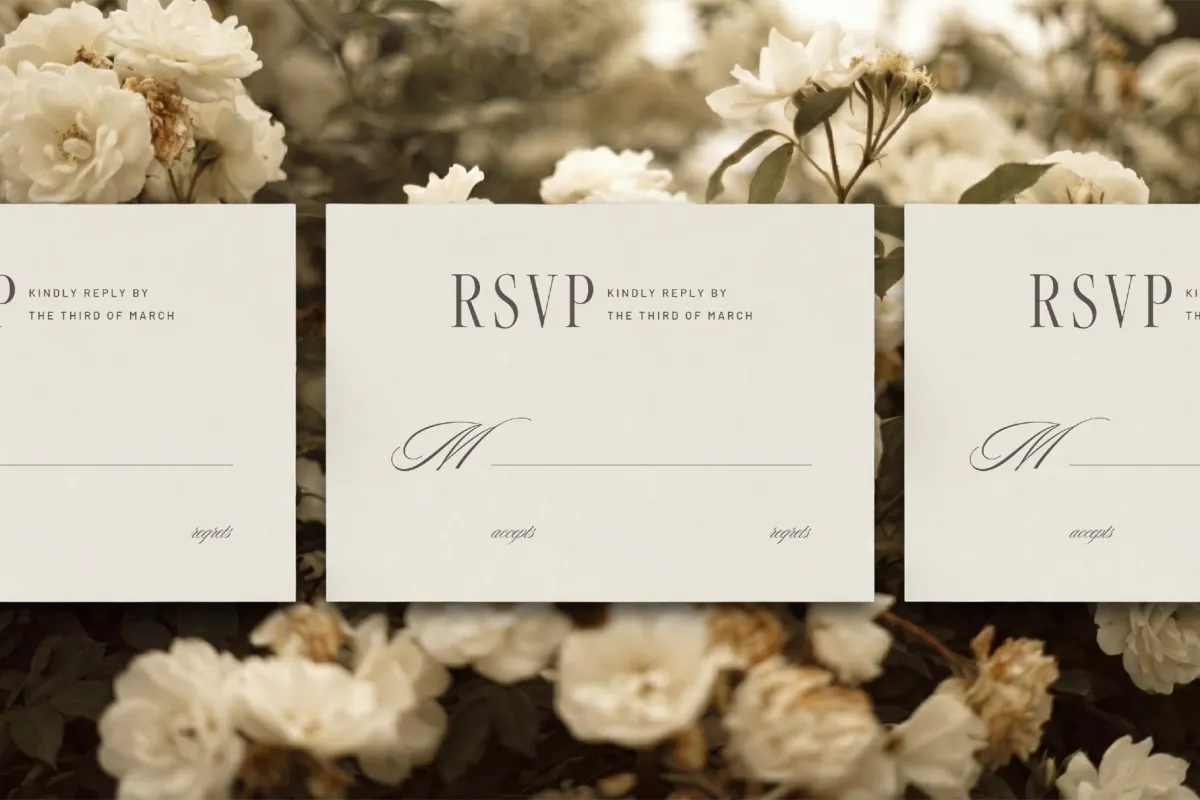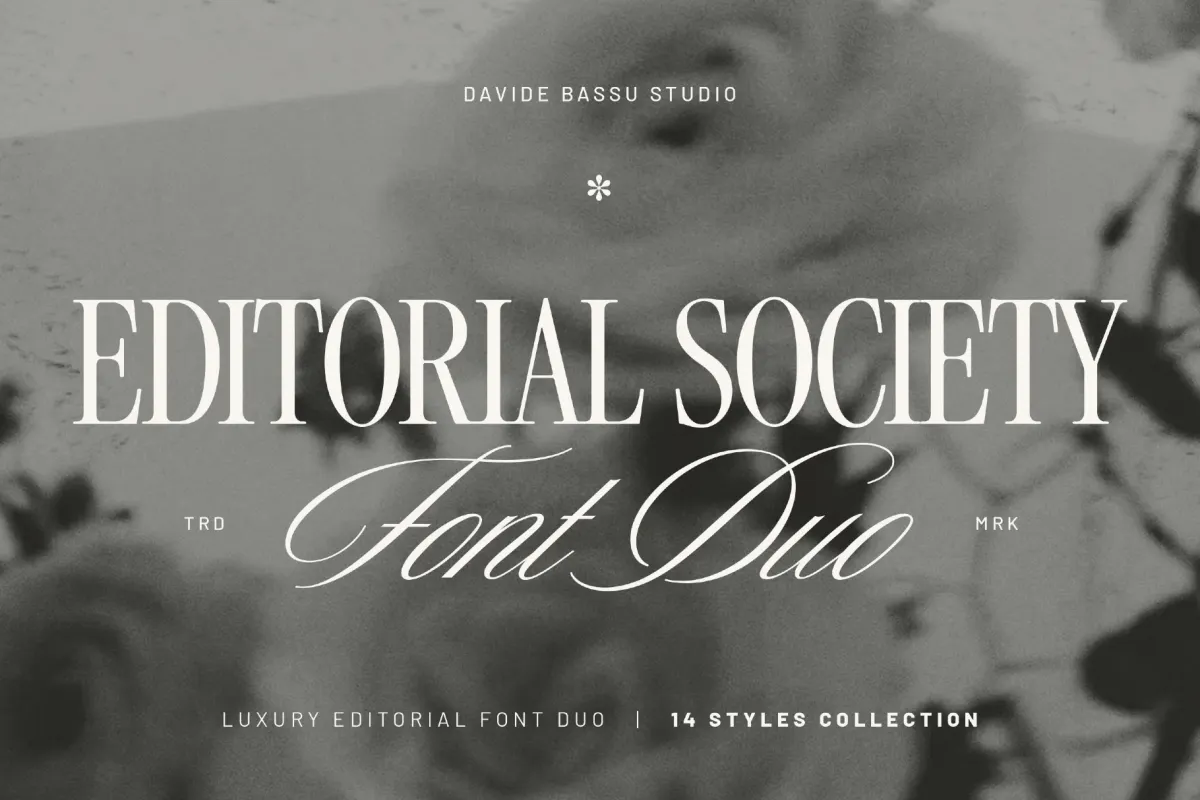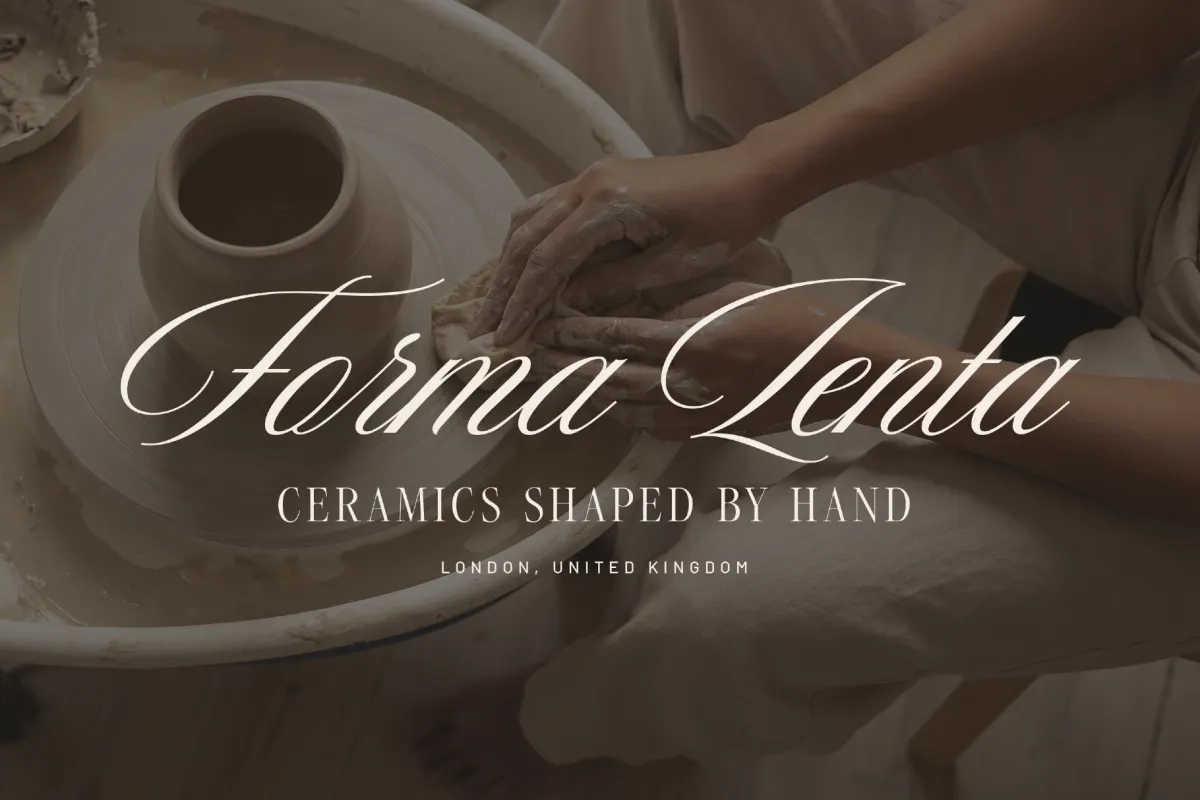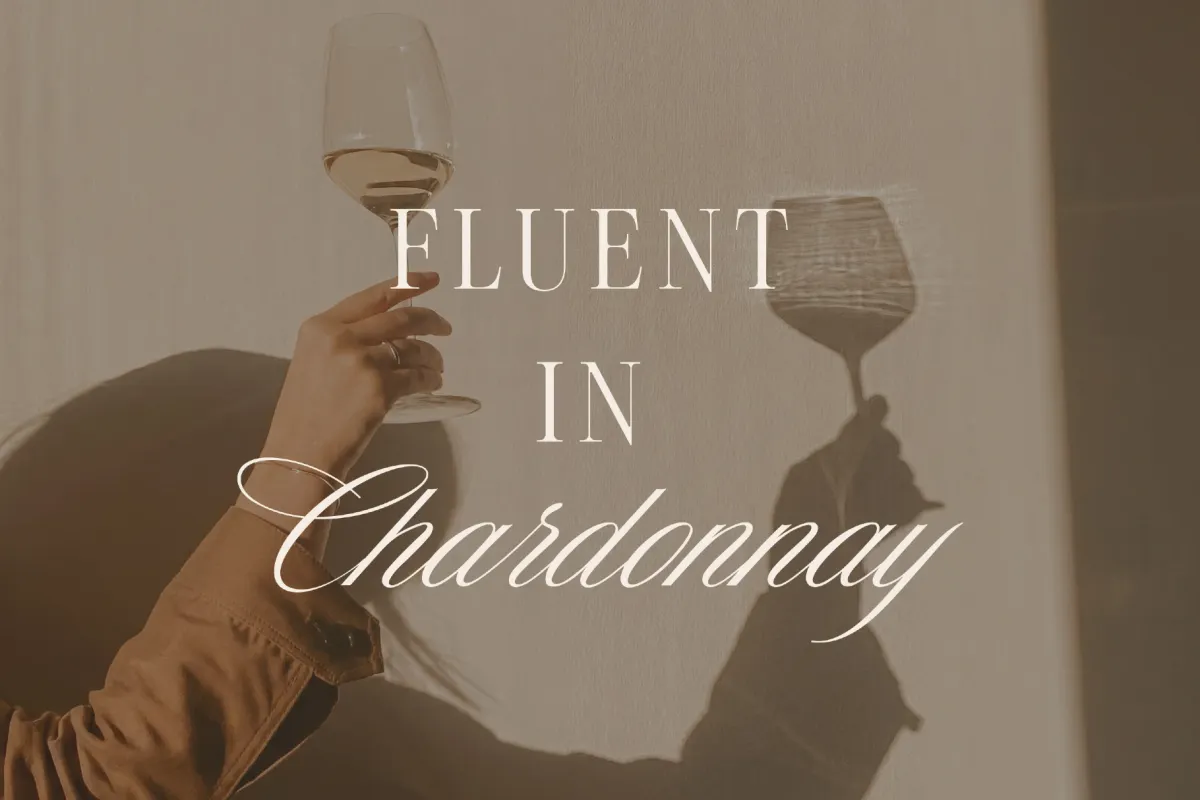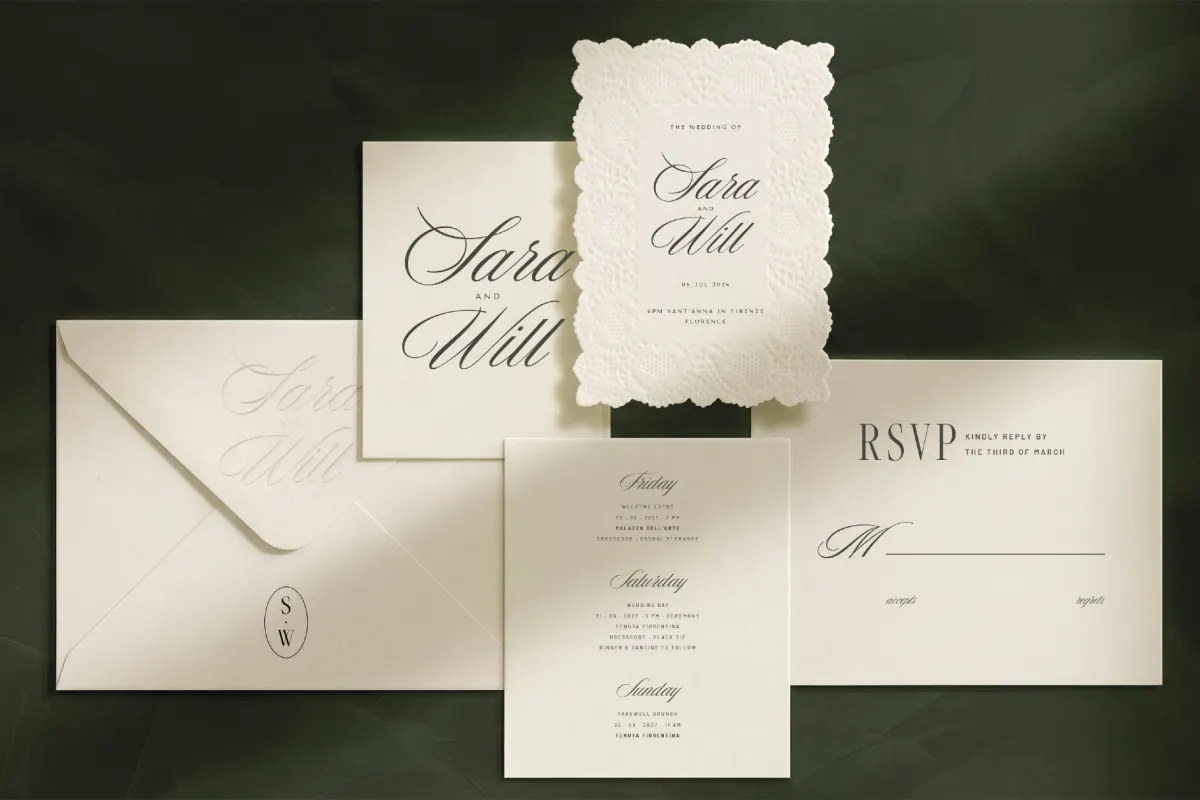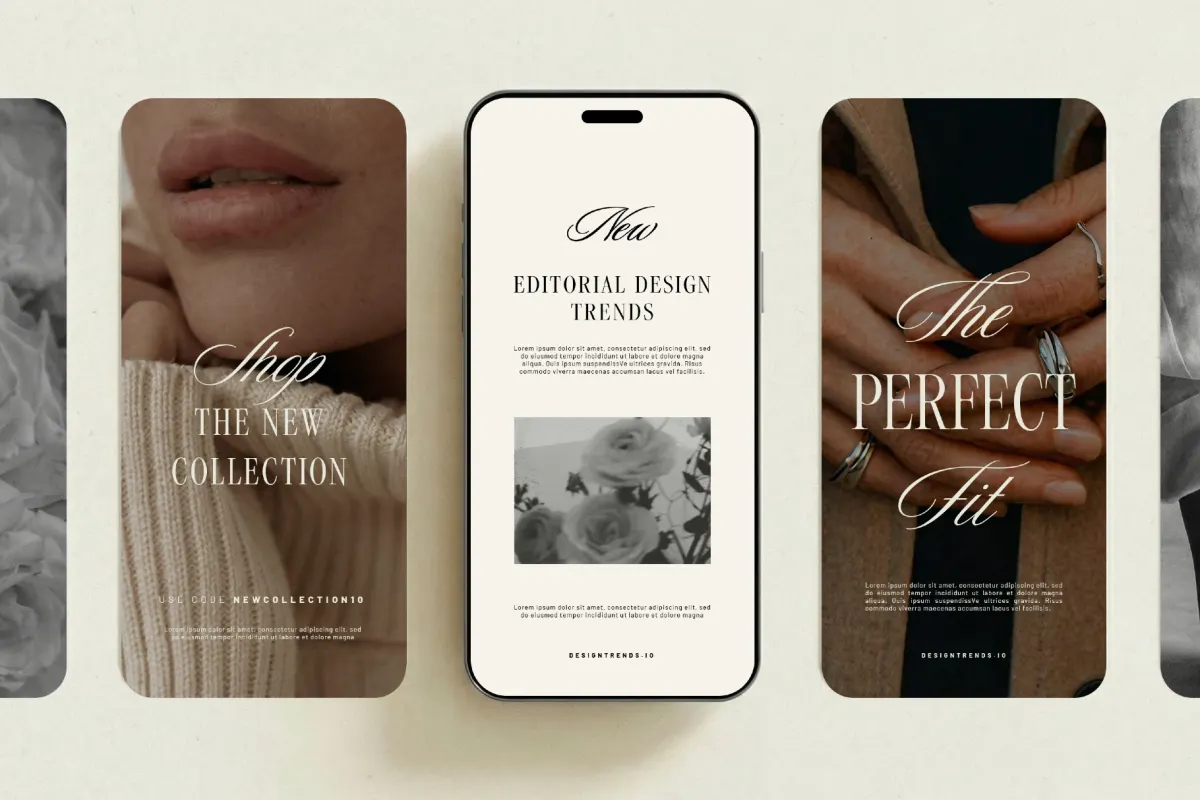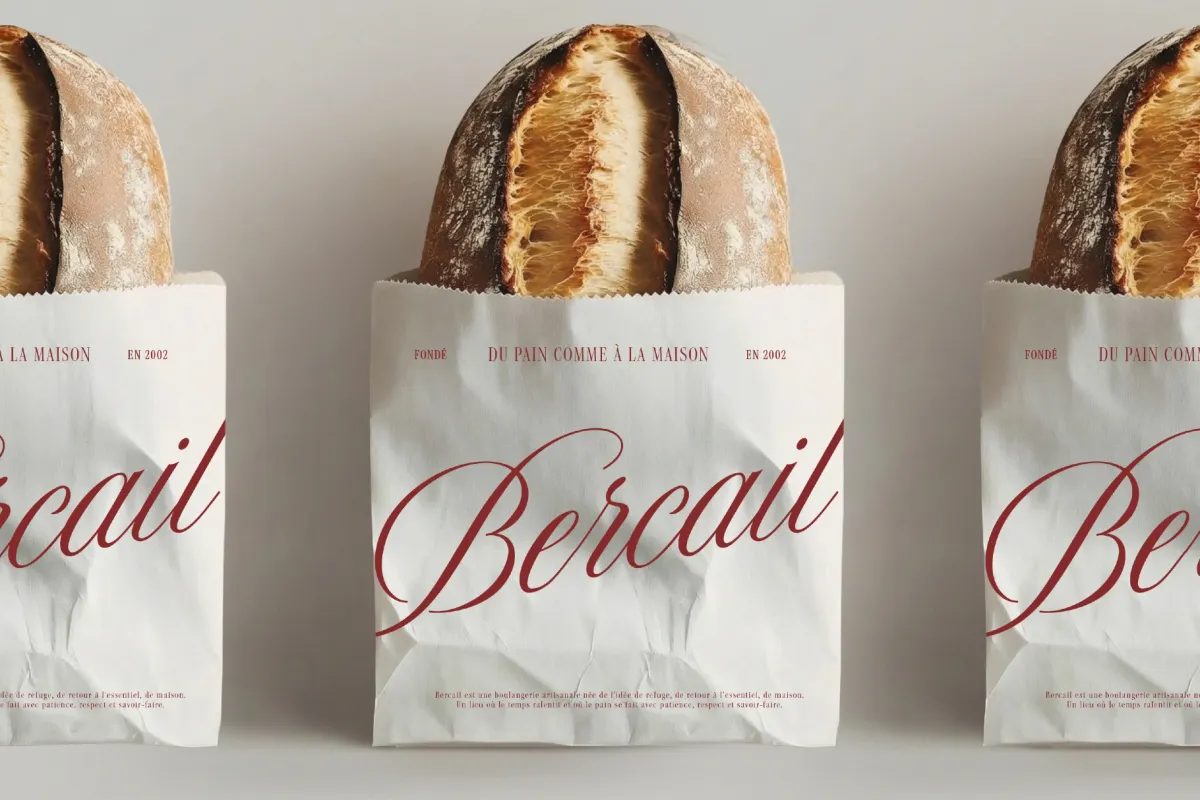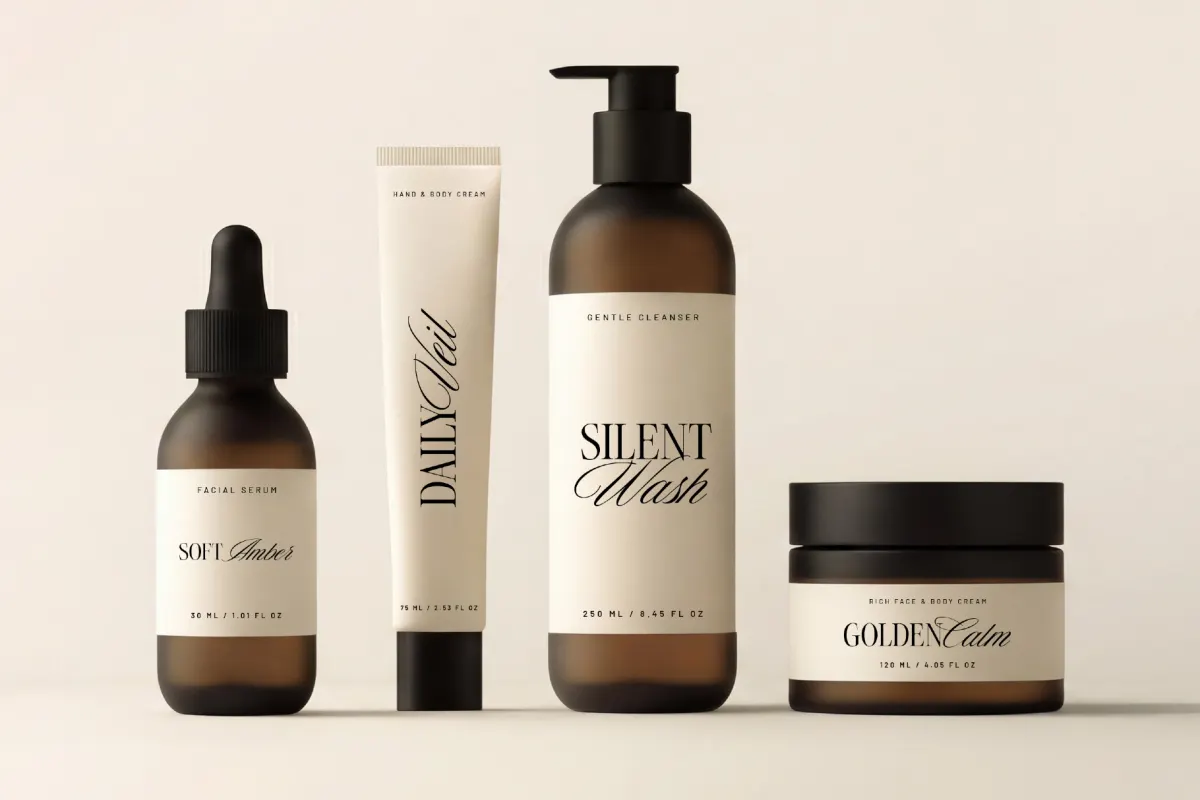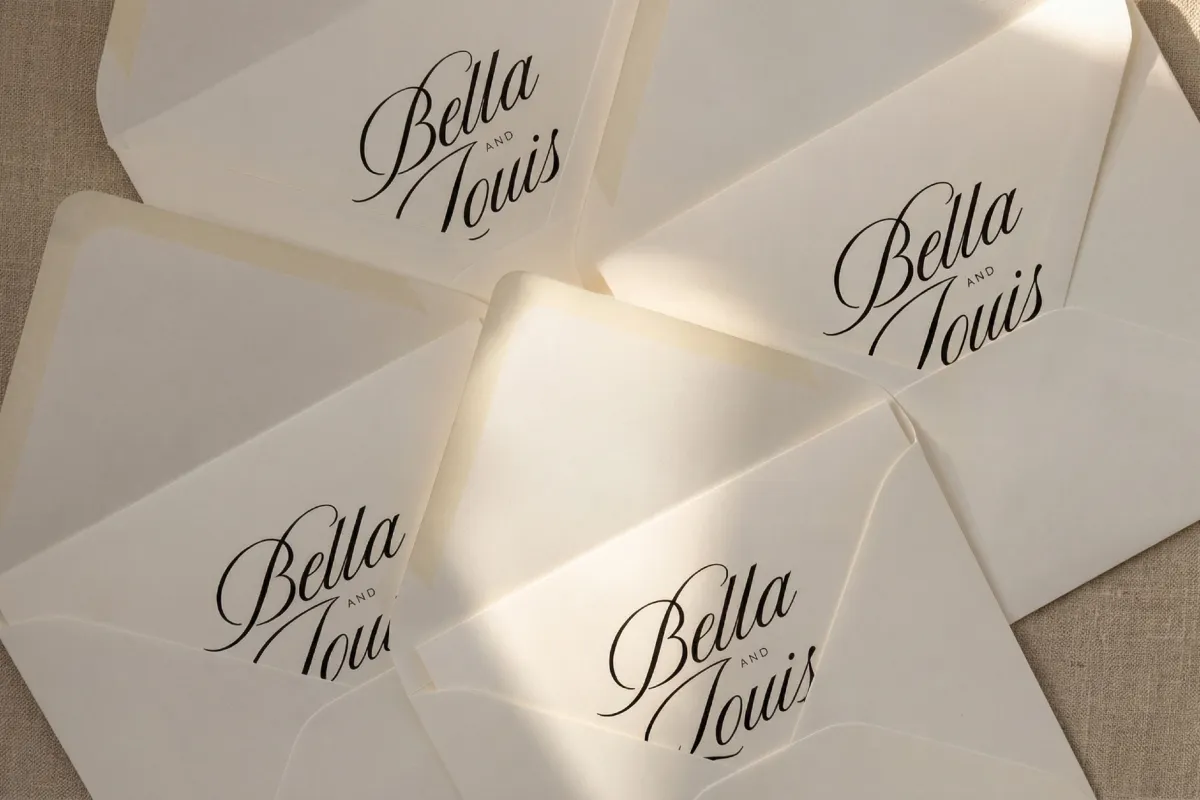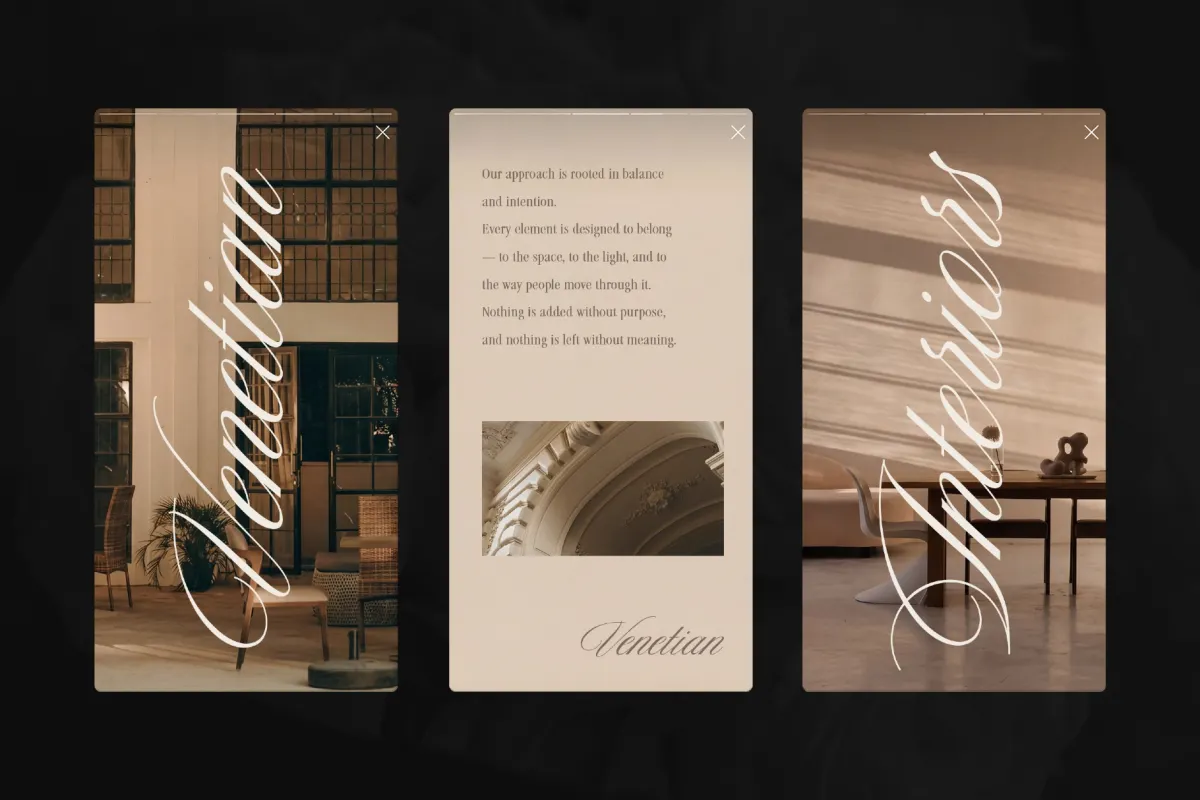
Editorial Society — Luxury Font Duo
Within the Editorial Society, a couture-leaning serif pairs with a pointed-pen script drawn from vintage mastheads and handwritten correspondence. The two voices sit naturally together — polished to the core.
The serif sets discipline and rhythm for covers, hero lines, and longer passages. The script shifts mood from tidy to lavish, with styles ranging from clean to ornate flourish. Ligatures and alternates add nuance.
Practical uses (real projects)
- Fashion campaigns.
- Magazine layouts — section openers, pull quotes, credits, captions.
- Beauty and fragrance — carton fronts, bottle labels, foil seals.
- Wedding suites — names in the script, details in the serif, wax-seal monograms.
- Hospitality — menu covers, room cards, key tags, reservation notes.
- Jewelry and boutique branding — logotypes, swing tags, care cards.
- Photography studios — watermark signatures, proof stamps, thank-you notes.
- Editorial websites — hero typography, collection headers, feature teasers.
- Lookbooks and catalogs — chapter dividers, style names, price grids.